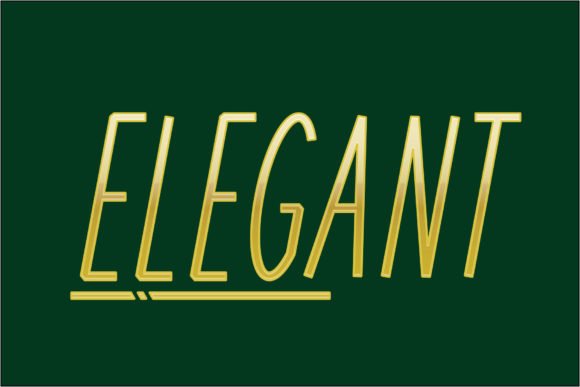
The Perfect Canvas: Unveiling the Elegant Font
As a designer, have you ever found yourself pouring over a blank page, struggling to find the perfect font to bring your vision to life? The blank page stares back at you, a daunting reminder that the perfect font can make all the difference between a good design and a great one. It’s in these moments that we turn to the Elegant Font, a timeless choice that has been a staple in the design world for years.
The Elegant Font is a beautiful Sans Serif font that features narrow letters and a subtle slant, making it perfect for body text. Its sleek and modern design lends itself to a wide range of applications, from editorial design to digital interfaces. And for designers, the Elegant Font is a valuable asset that can elevate any project with its understated elegance.
- Unique Characteristics: Elegant Font features a sophisticated, elegant design with subtle flair and flair details, making it ideal for high-end branding, publishing, and advertising.
- Kerning and Ligatures: Elegant Font includes advanced kerning and ligature pairs, ensuring seamless text flow and enhancing the overall reading experience.
Elegant Font Review
I’ve had the chance to work with the Elegant Font, and I must say it’s a solid choice for any designer looking to add a touch of sophistication to their project. Here are some of the things that work well:
- ✨ Beautifully crafted letterforms that exude elegance and refinement
- ✨ Excellent legibility, making it perfect for body text and long-form content
- ✨ A wide range of weights and styles to choose from, allowing for maximum flexibility
- ✨ Supports both Latin and Cyrillic scripts, making it a great choice for global audiences
- ⚠️ Limited support for non-standard languages and scripts
- ⚠️ Some users may find the font too ornate or distracting, especially in smaller sizes
- ⚠️ Not ideal for use in display headings or titles, where a more dramatic font is needed
Overall, I’d say the Elegant Font is a great choice for designers who want to create a polished, refined look without breaking the bank. It’s not perfect, but it’s a solid workhorse that’s sure to please.
Tips for Getting the Most Out of Elegant Font
Use Elegant Font to create elegant and sophisticated designs. Experiment with different font sizes, colors, and styling options to achieve the desired look.
Elegant Font is ideal for creating:
– Luxury brand designs
– High-end marketing materials
– Elegant website typography
Alternatives to Elegant Font
Playfair Display is a luxurious script font that adds a touch of sophistication to any design. It’s ideal for use in headings, titles, and other large text elements where you want to make a statement. Compared to Elegant Font, Playfair Display has a more ornate and classic feel, making it suitable for traditional and vintage-inspired designs.
Merriweather is a classic serif font that exudes elegance and sophistication. It’s a great choice for body text, headings, and other elements where you want to convey a sense of refinement. While Elegant Font has a more modern feel, Merriweather has a timeless quality that makes it suitable for a wide range of design projects.
Lato is a modern sans-serif font that’s highly versatile and readable. It’s a great choice for body text, headings, and other elements where you want to convey a sense of simplicity and clarity. Compared to Elegant Font, Lato has a more minimalist feel, making it suitable for contemporary and minimalist designs.